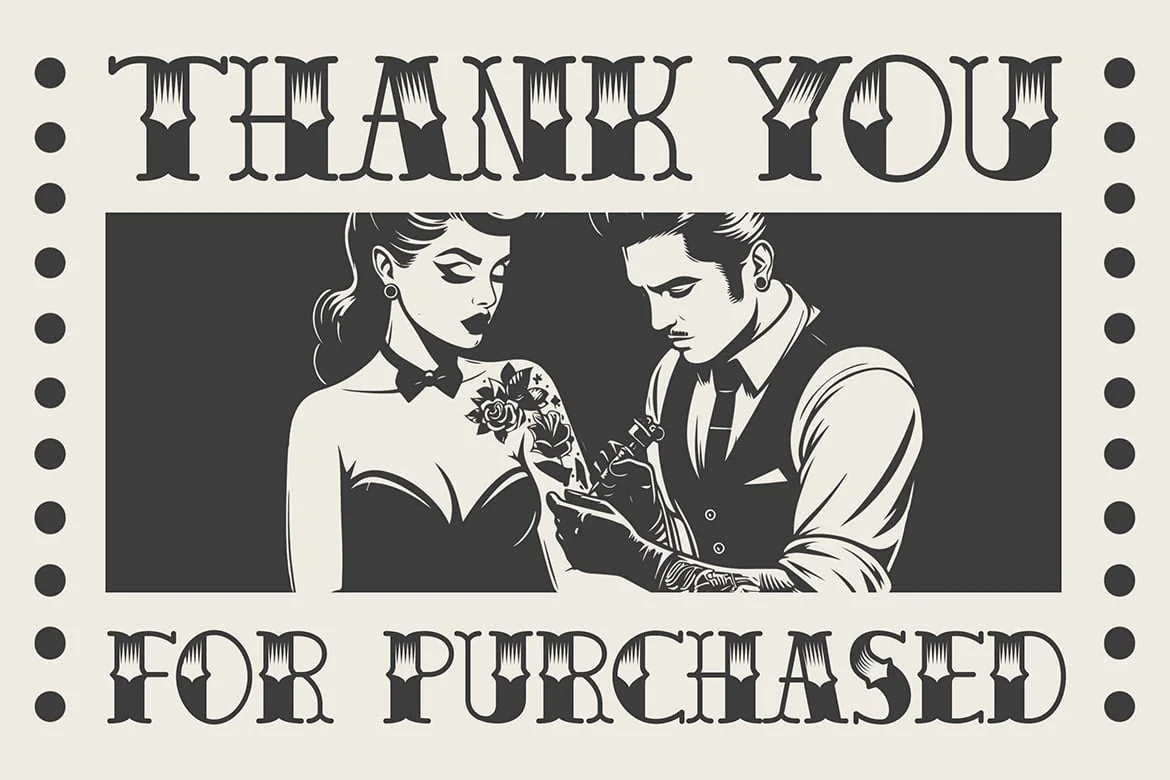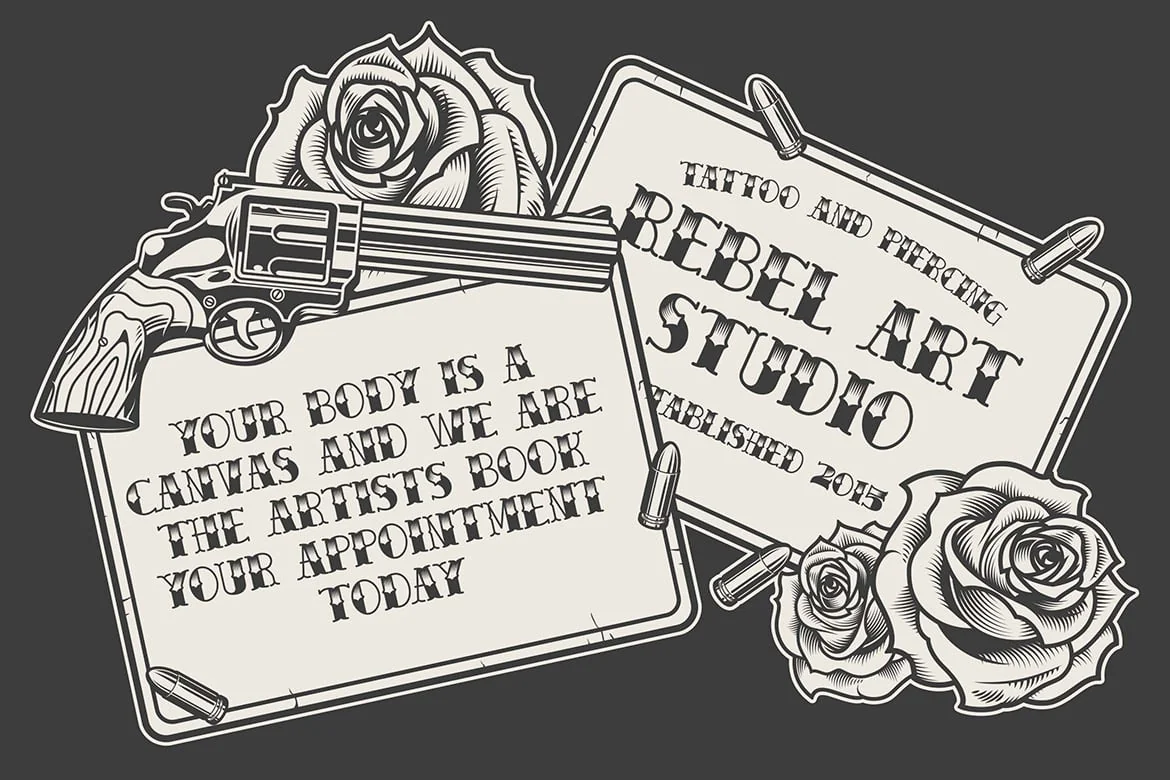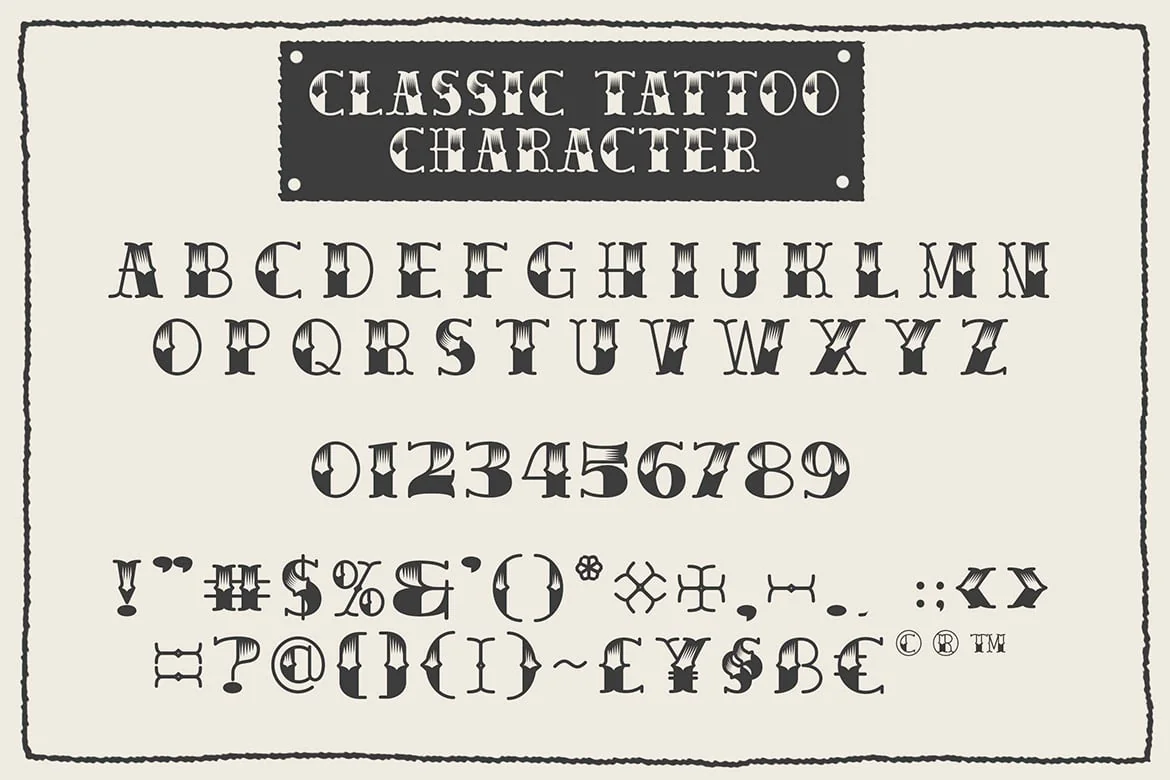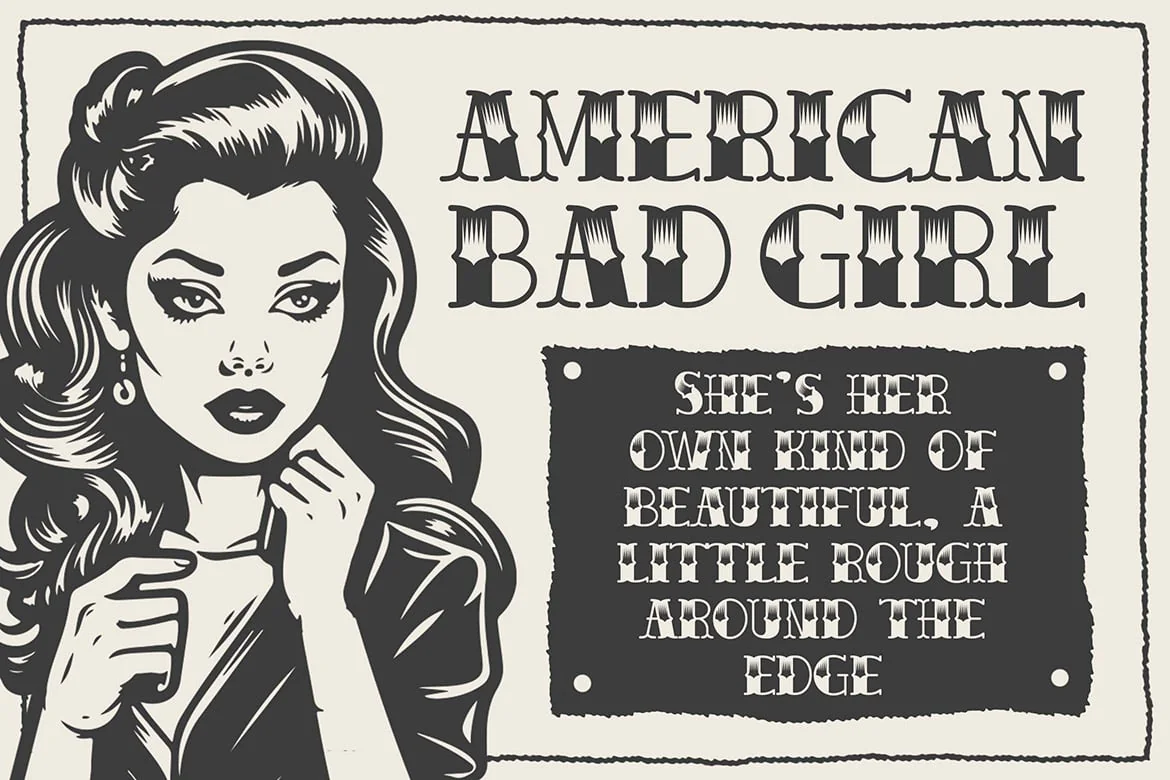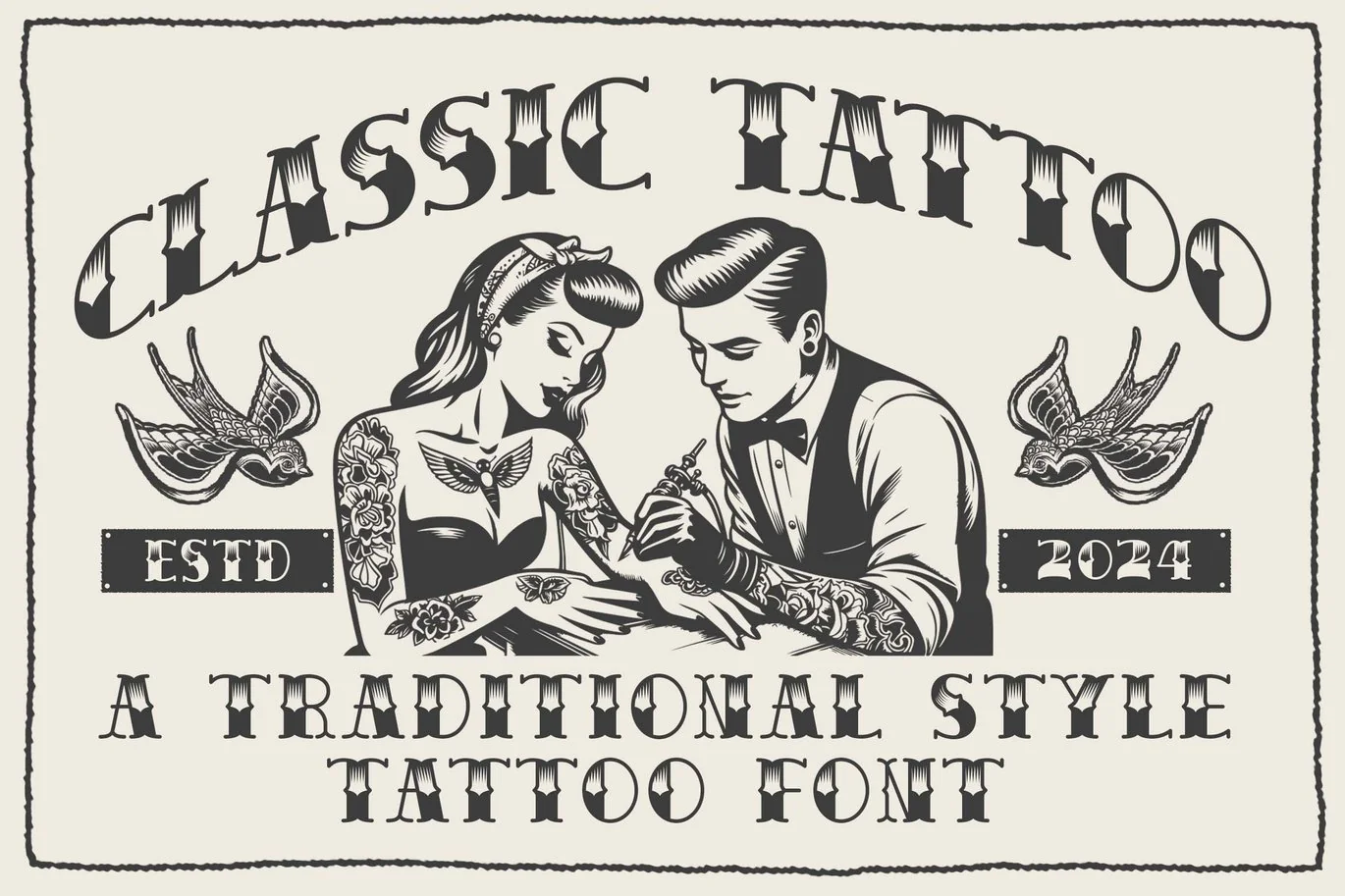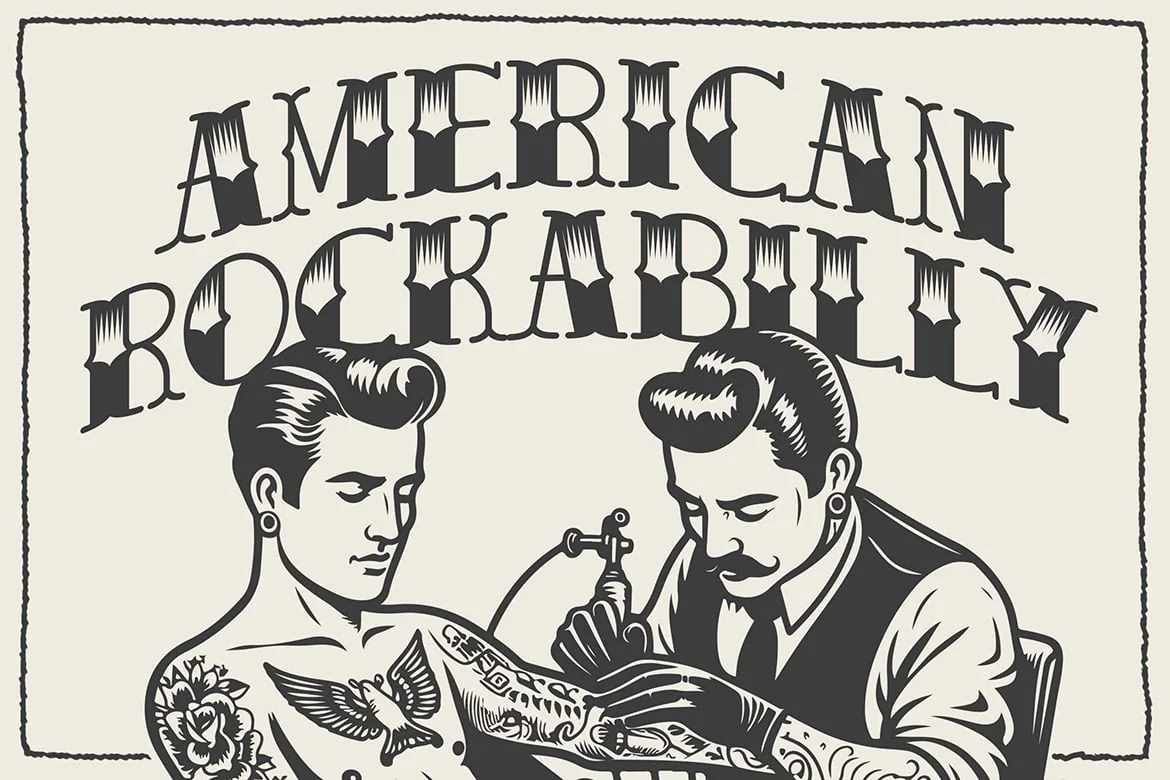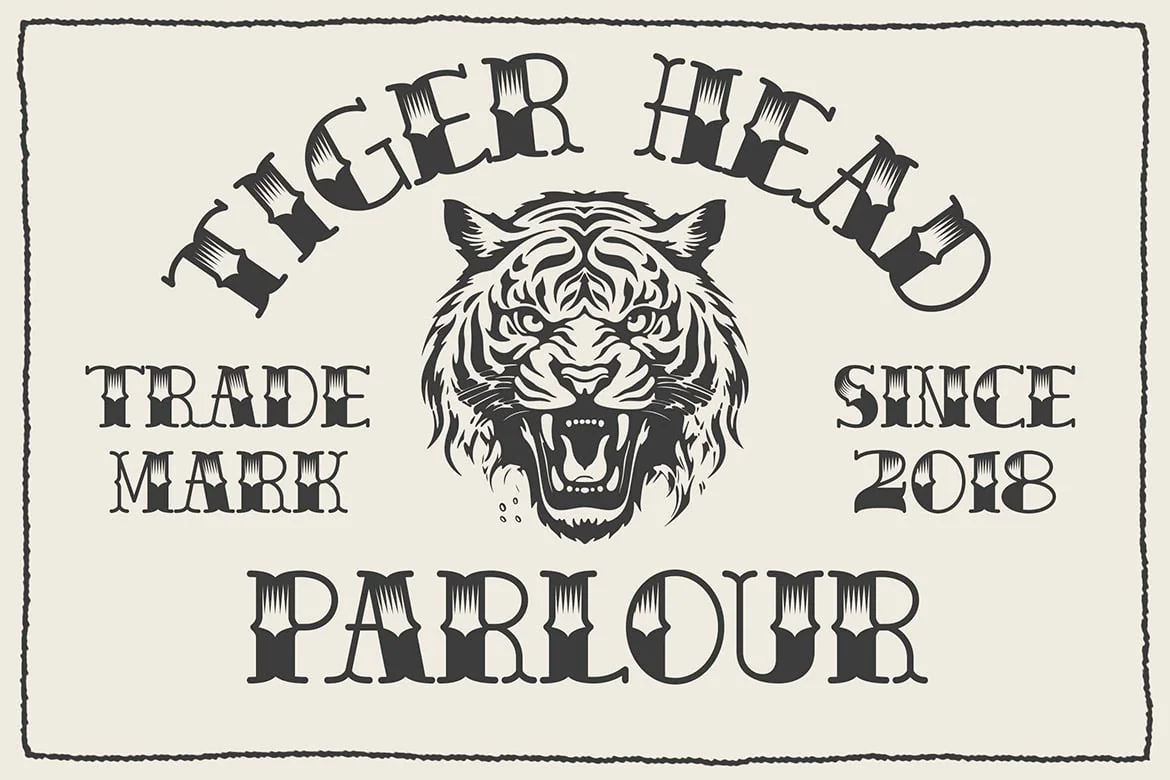
Classic Tattoo Font
Hello, awesome people! This time, we have a new font called Classic Tattoo a traditional tattoo style font by Blankids Studio.
Classic Tattoo a traditional tattoo style font is made for any professional project branding, such as logotype, watermarks, poster, branding, promotions, product packaging, etc. Every letter has a tattoo style design. This font comes in .otf and .ttf.
Classic Tattoo font includes a full set of tattoo style uppercase and lowercase letters, numerals and punctuation. This font has a tattoo style. See the previews above to get some inspiration on how to use them. Happy designing!